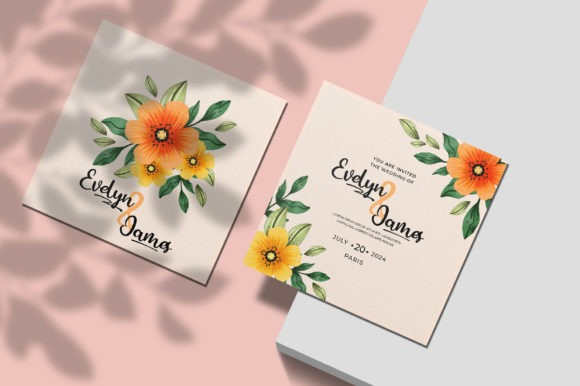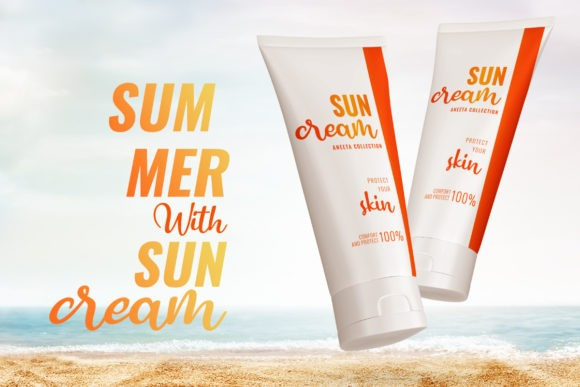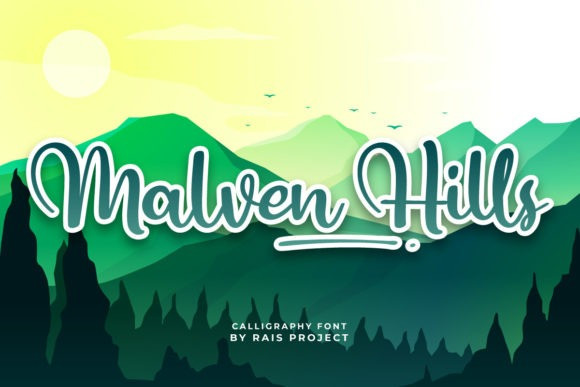
Malven Hills Font
Malven Hills Script Font is a sweet and delicate handwritten font. Dainty and joyful, this font will be ideal for writing wedding invitations, cards or any other design that may need a romantic, personalized touch!